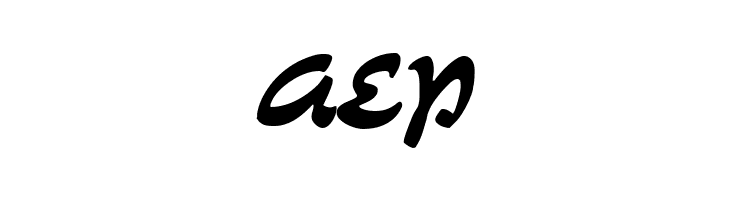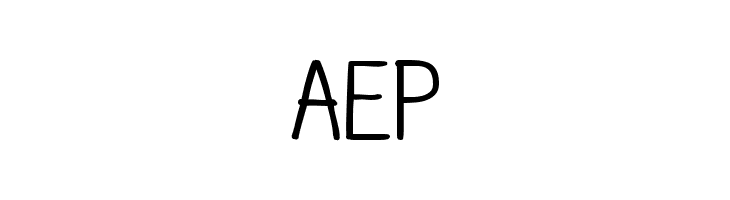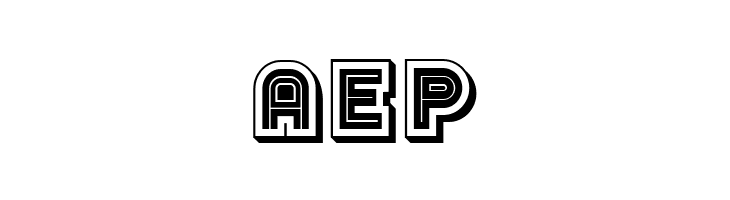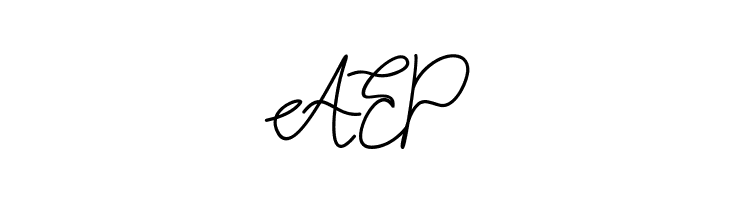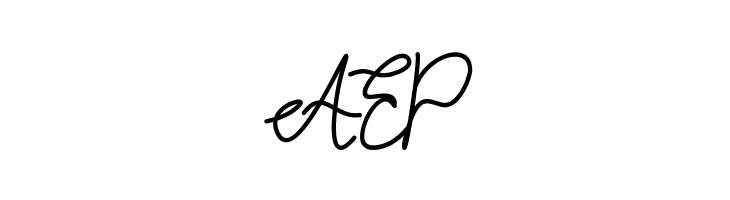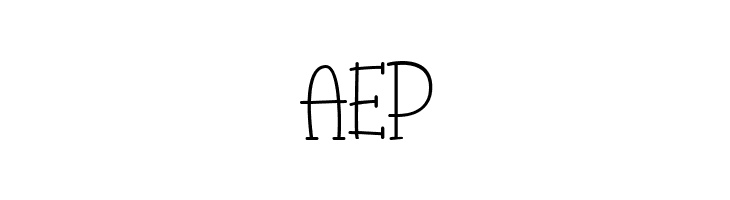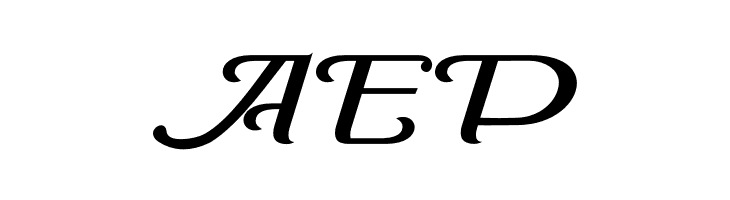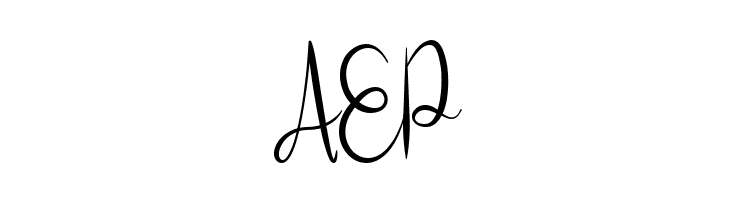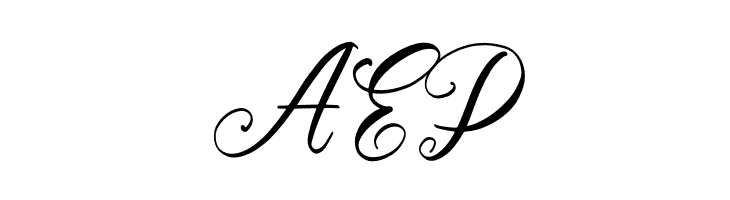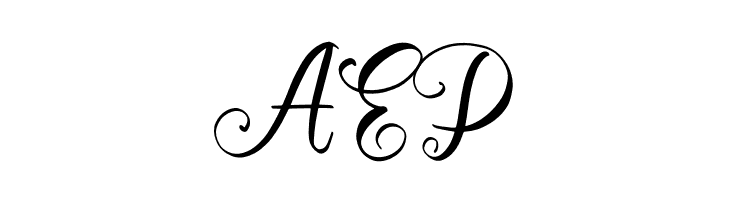
Elegant cursive script with a handwritten style.
A whimsical, flowing script font with elegant, interconnected strokes.
A bold, geometric font with a 3D effect and retro appeal.
A bold, expressive script font with flowing cursive letterforms.
An elegant and flowing script font with a classic yet modern appeal.
A lively, expressive handwritten font with dynamic strokes.
An elegant, flowing script font with a handwritten, cursive style.
A flowing, cursive font with elegant, interconnected letters and a graceful style.
A cursive, handwritten-style font with elegant, flowing strokes.
A playful, whimsical script font with a handwritten style.
A lively and elegant script font with smooth curves and moderate stroke thickness.
A bold, modern font with clean lines and a strong presence.
A modern, bold sans-serif font with clean lines and uniform strokes.
An elegant script font with flowing, ornate characters and intricate loops.
An elegant, flowing script font with decorative flourishes and a cohesive, italic style.
A playful, whimsical font with tall, narrow letters and irregular strokes.
A graceful and elegant script font with flowing cursive letterforms.
A modern italic font with elegant curves and dynamic slant.
A high-contrast, modern serif font with elegant and stylish features.
A modern serif font with high contrast and sharp serifs, combining elegance and boldness.
A bold serif font with modern, angular serifs and a semi-bold weight.
A bold, semi-condensed font with elegant uppercase and unique lowercase characters.
An elegant italic font with high contrast and flowing curves.
A modern, high-contrast font with elegant curves and sharp angles.
A high-contrast serif font with a blend of modern and classic elements.
A bold serif font with a classic yet modern appeal.
A semi-condensed font with high contrast and dynamic style.
A playful handwritten font with rounded edges and a casual style.
A bold, dynamic script font with connected characters and strong strokes.
A bold, cursive font with a dynamic and fluid handwriting style.
A lively and expressive handwritten font with fluid, dynamic strokes.
A playful, handwritten script font with dynamic strokes and decorative flair.
A sophisticated serif font with elegant lines and subtle curves.
A modern serif font with elegant lines and balanced proportions.